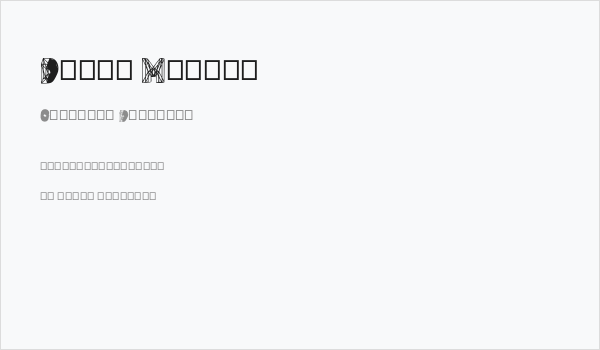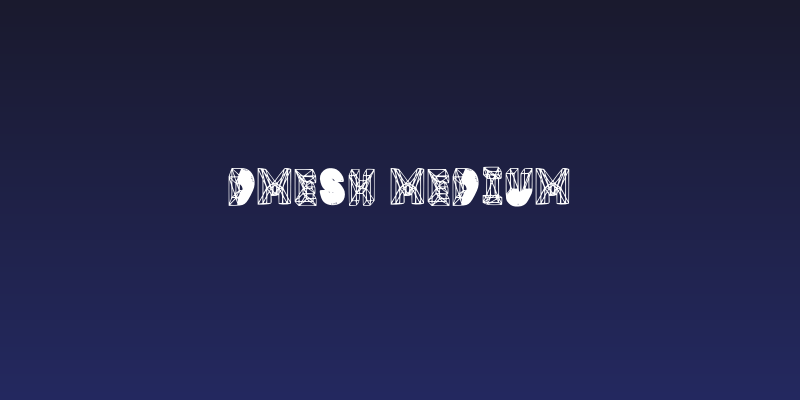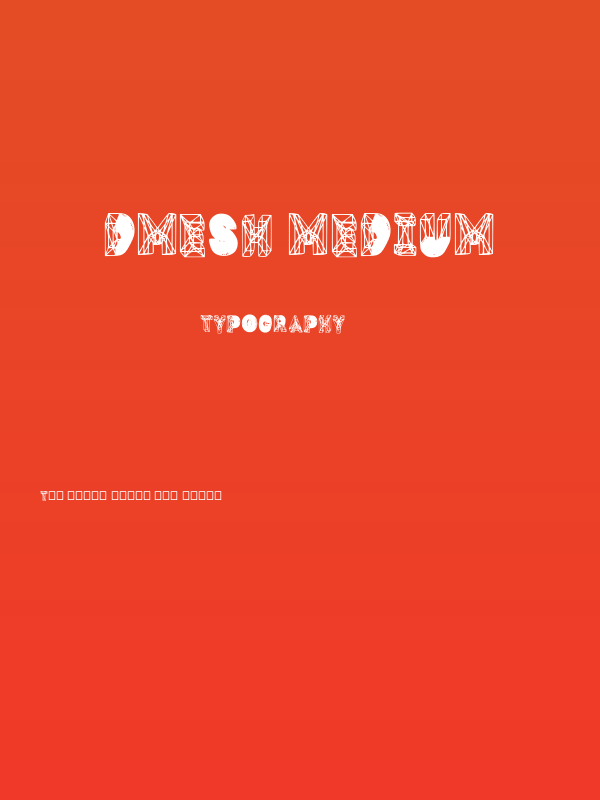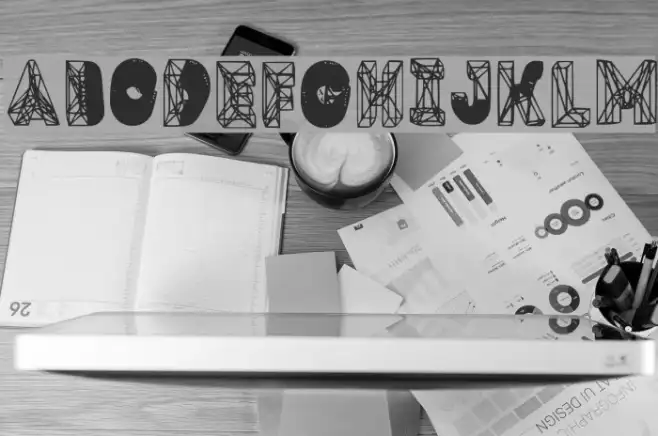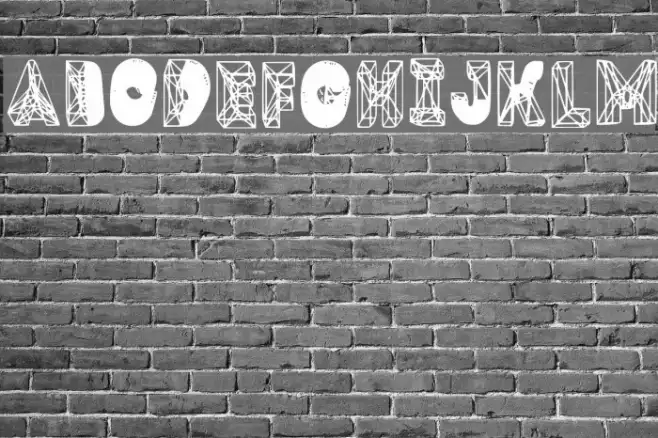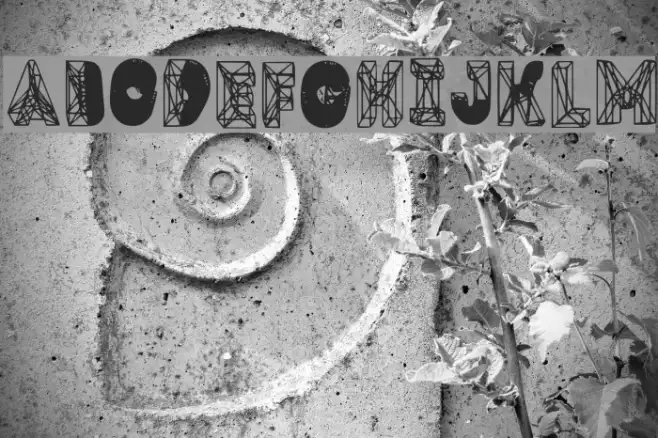
Dmesh Medium Font
Dmesh Medium Description
This font features a unique and artistic design with a geometric and abstract style. Each letter is crafted with intricate line work, creating a mesh-like appearance that is both modern and visually striking. The uppercase letters are bold and distinct, making them ideal for attention-grabbing headlines or creative projects. The font's design is reminiscent of a wireframe or digital art, offering a futuristic and edgy aesthetic. Its decorative nature makes it suitable for use in branding, posters, or any project that requires a standout typographic element.